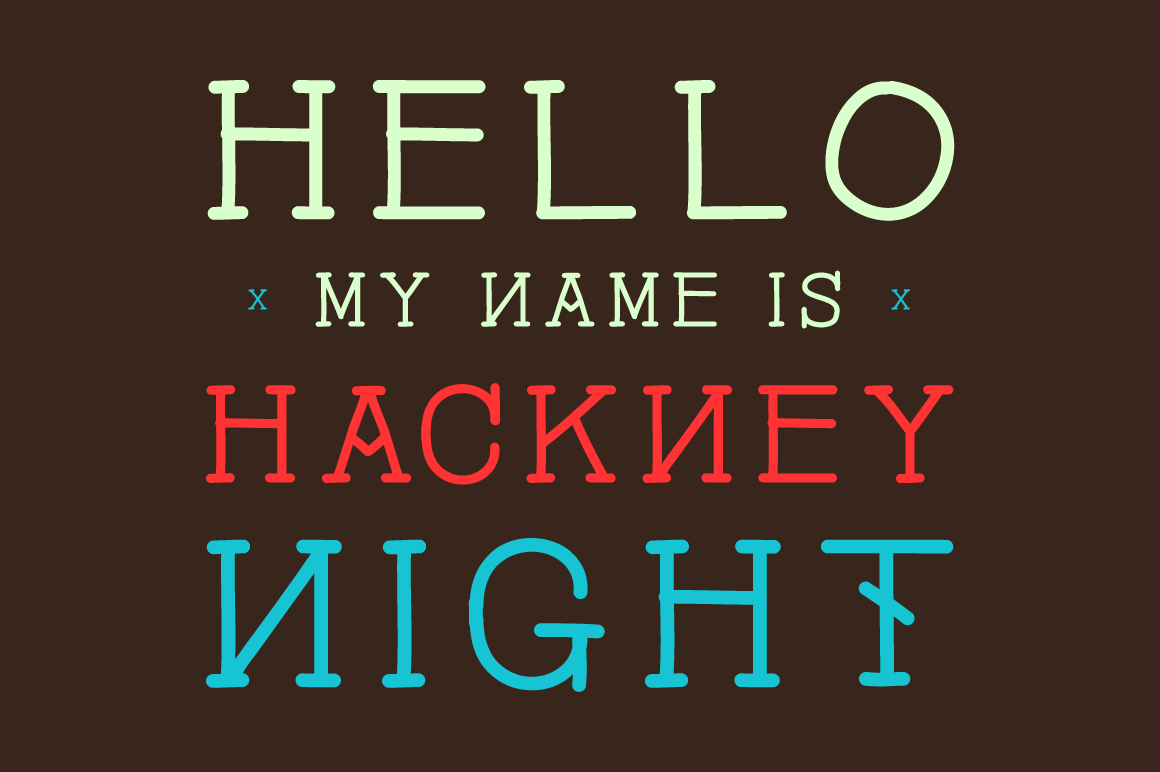
Hackney Night - Font
Hackney Night - font.
Hackney Night is a slab face easy to use available in regular and bold weights. Hackney night is very readable in small as in large both in print and for the web. I'm sure you will love it like I love to do it for you.